THE SCIENCE BEHIND FONTS
HOW WE READ
Scan path
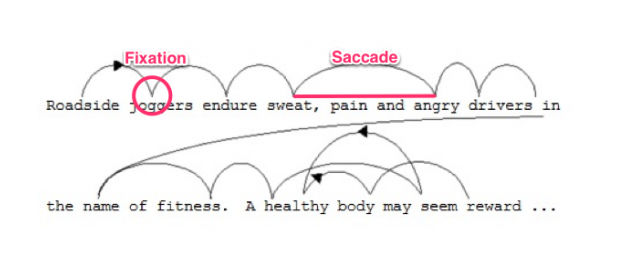
HOW WE READ
saccadic eye movement
Your eyes typically move across a page for between 7 to 9 letters before needing to pause to process what you’re reading.
As you scan a sentence, no useful visual processing is happening in your brain.
Visual processing is completely dependent upon the information taken in when you pause.
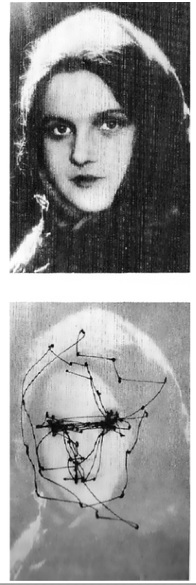
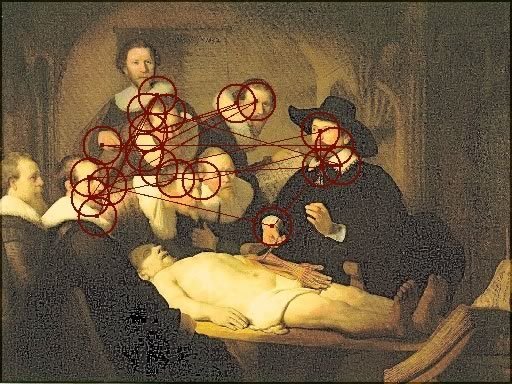
WHY THE RIGHT FONT LAYOUT
makes you feel good
SCIENCE BEHIND THE FONTS
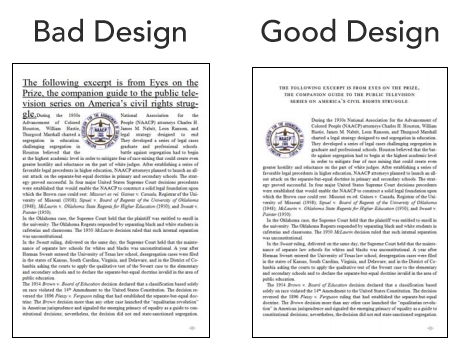
The researchers found that readers felt bad while reading the poorly designed layout.
Sometimes, this feeling would be expressed physically with a frown.
Meanwhile, the participants who read content from the good reading layout, felt like it took less time to read and felt better.
People exposed to the well-designed layout were found to have higher cognitive focus, more efficient mental processes, and a stronger sense of clarity.
CULTURE
impacts your
preference for fonts
Because fonts are designed by humans, there is usually some meaning attached to them.
You don’t want to choose
a font that is easily associated with something in our culture that’s markedly different than the vibe you’re trying to give off.
HOW TO DESIGN
better content
CHOOSE AN ANCHOR FONT
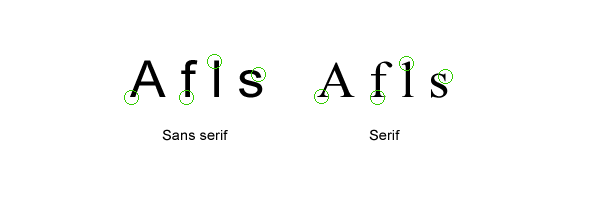
Il1 TEST
CHOOSE FONT SIZE BIGGER THAN 12pt
WATCH YOUR LINE LENGTH
MIND YOUR SPACING
QUESTIONS
1. How does handwriting-like font affect you?
2. How does the experiment look like?
3. What is the conclusion of the video?